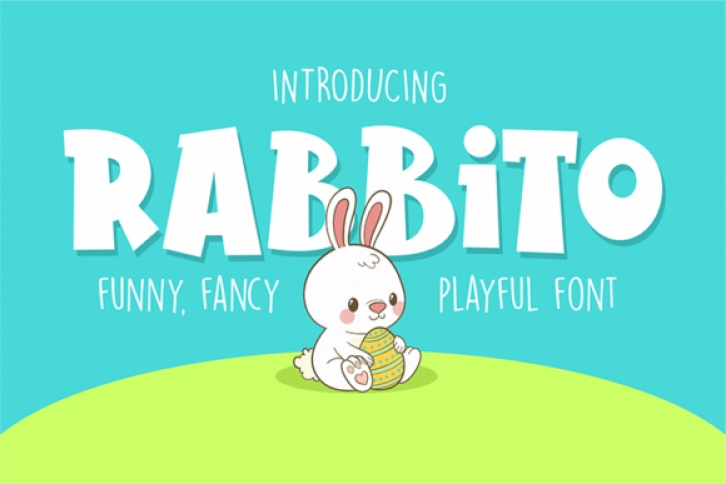
The Rabbito is funny, fancy and playful display font inspired by the cuteness of the rabbit. The unique characteristics of Rabbito make it suitable for various purposes such as quotes, t-shirt designs, flyers, YouTube channels, labels, logos, and much more!